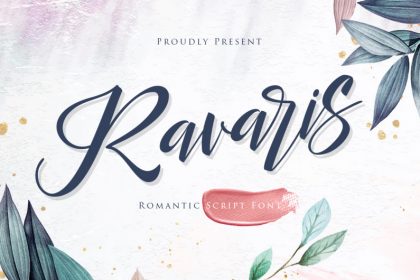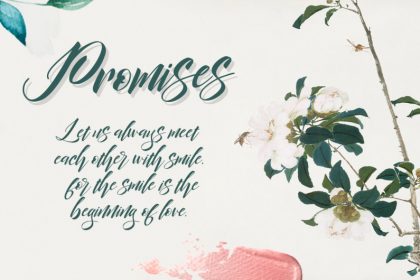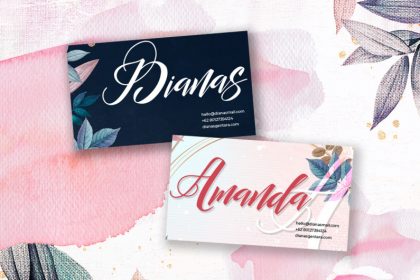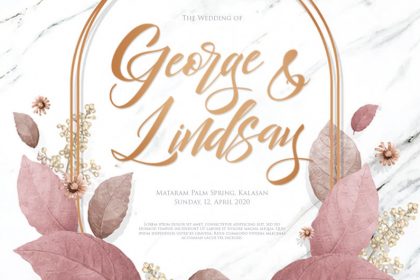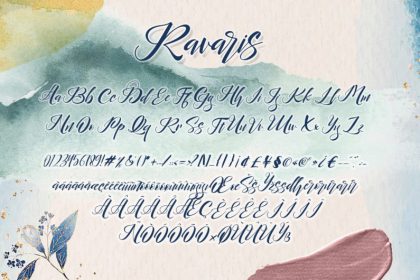
Ravaris Script Font
Get inspired by its modern swashes, and add an authentic charm to any
design project! Ravaris calligraphy font has been attentively written, with gentle curves to produce a font thats completely distinctive and original. It contains a full set of lower & uppercase letters, a large range of punctuation, numerals, and multilingual support. Perfect for adding a elegant and unique touch to your lettering projects and branding. Also with their help, you can create a Wedding lettering or beautiful frame for your home. Or just use for your business, book covers, stationery, marketing, magazines and more.